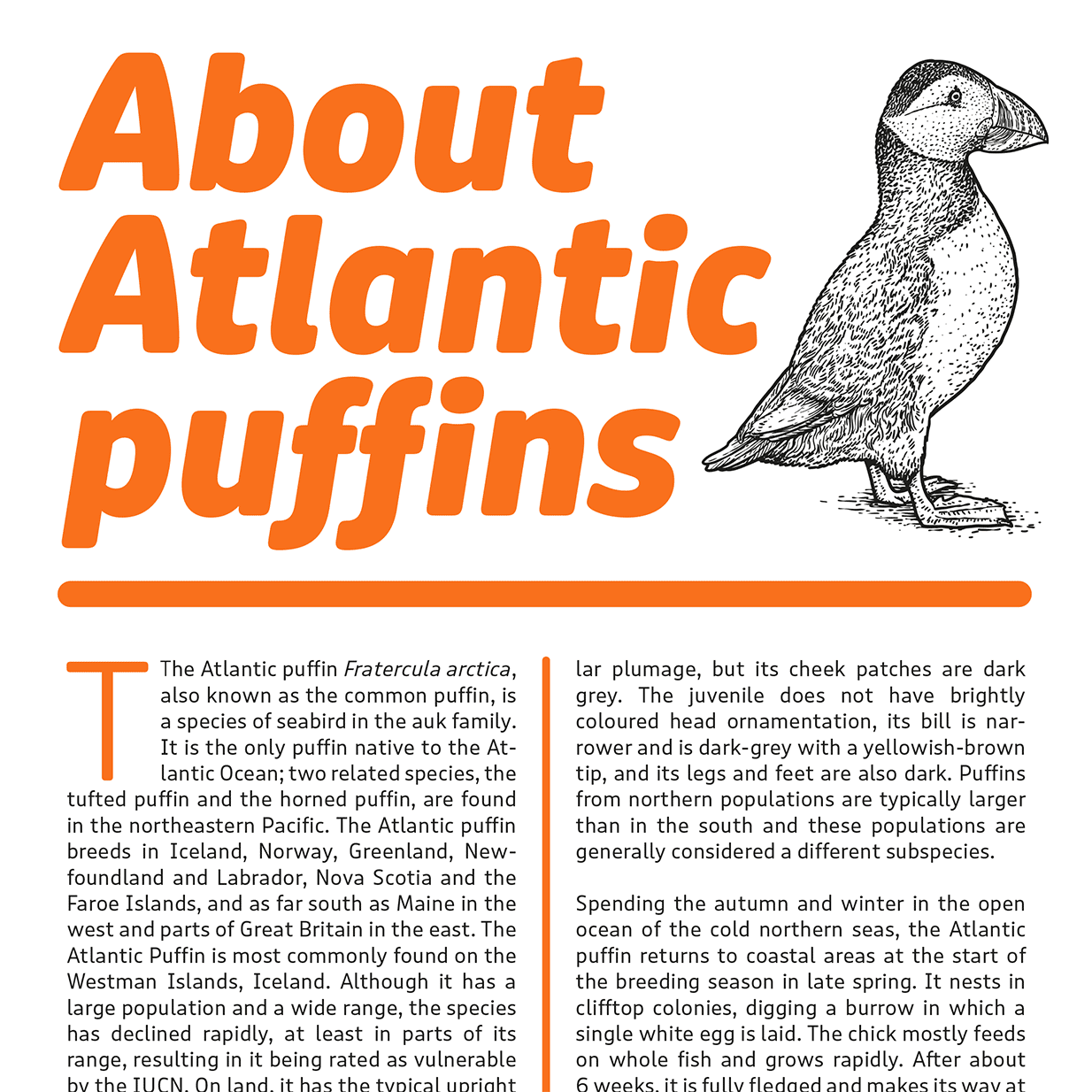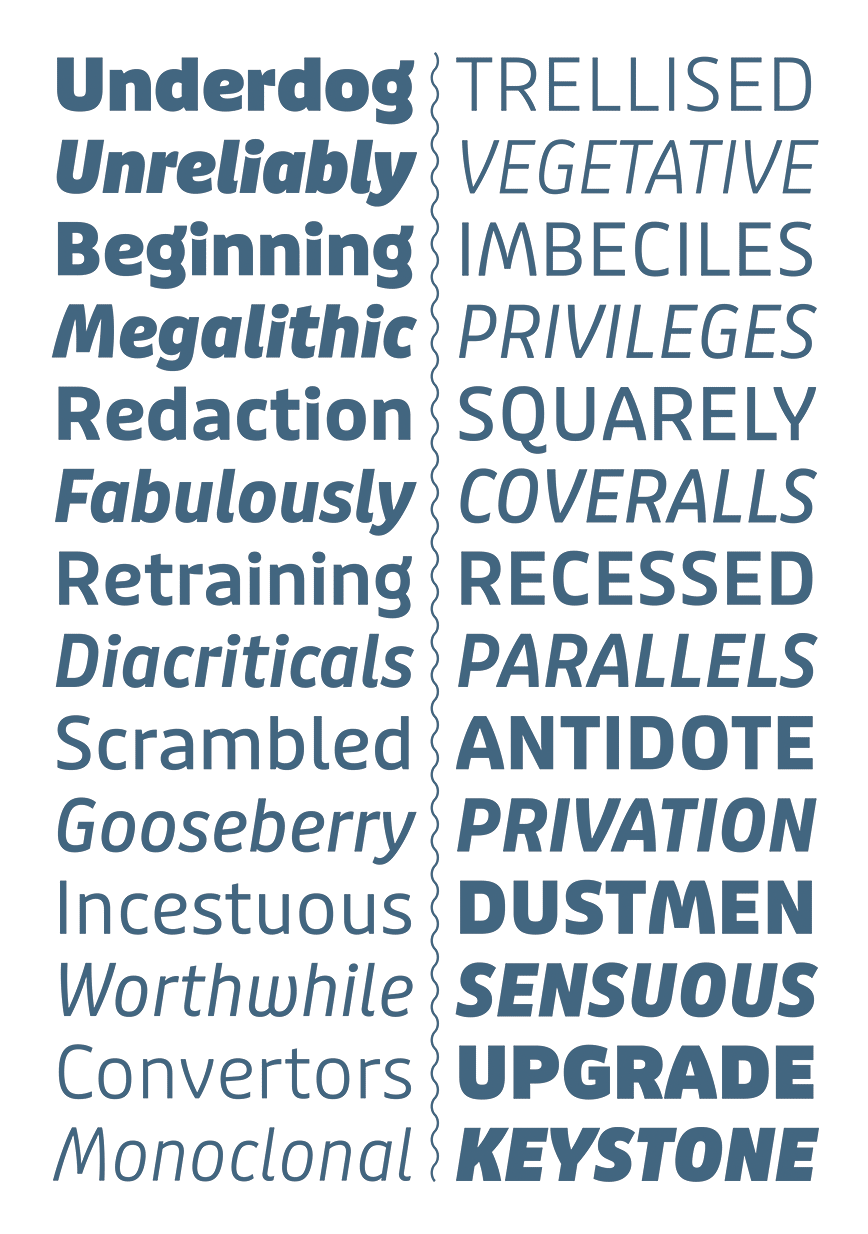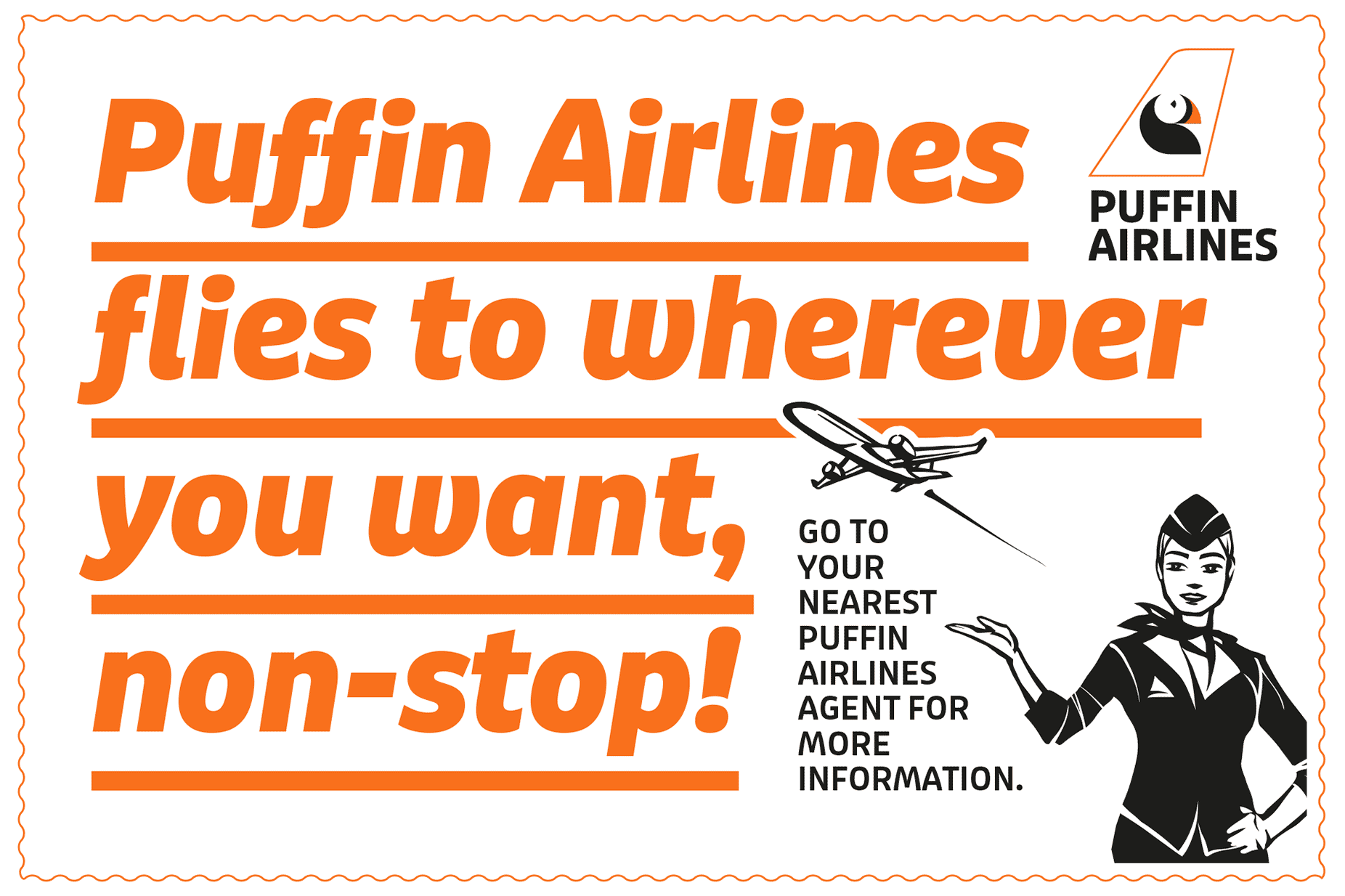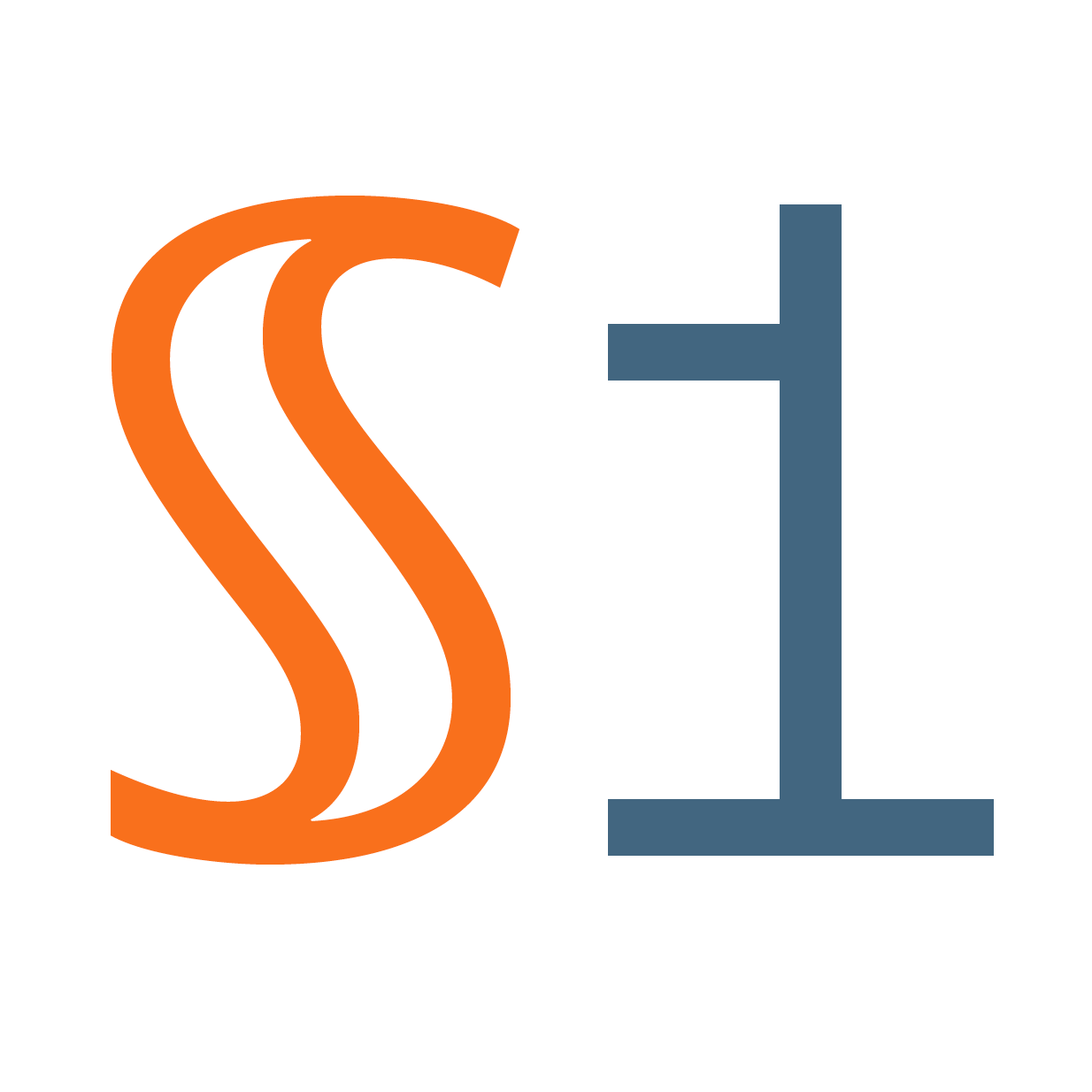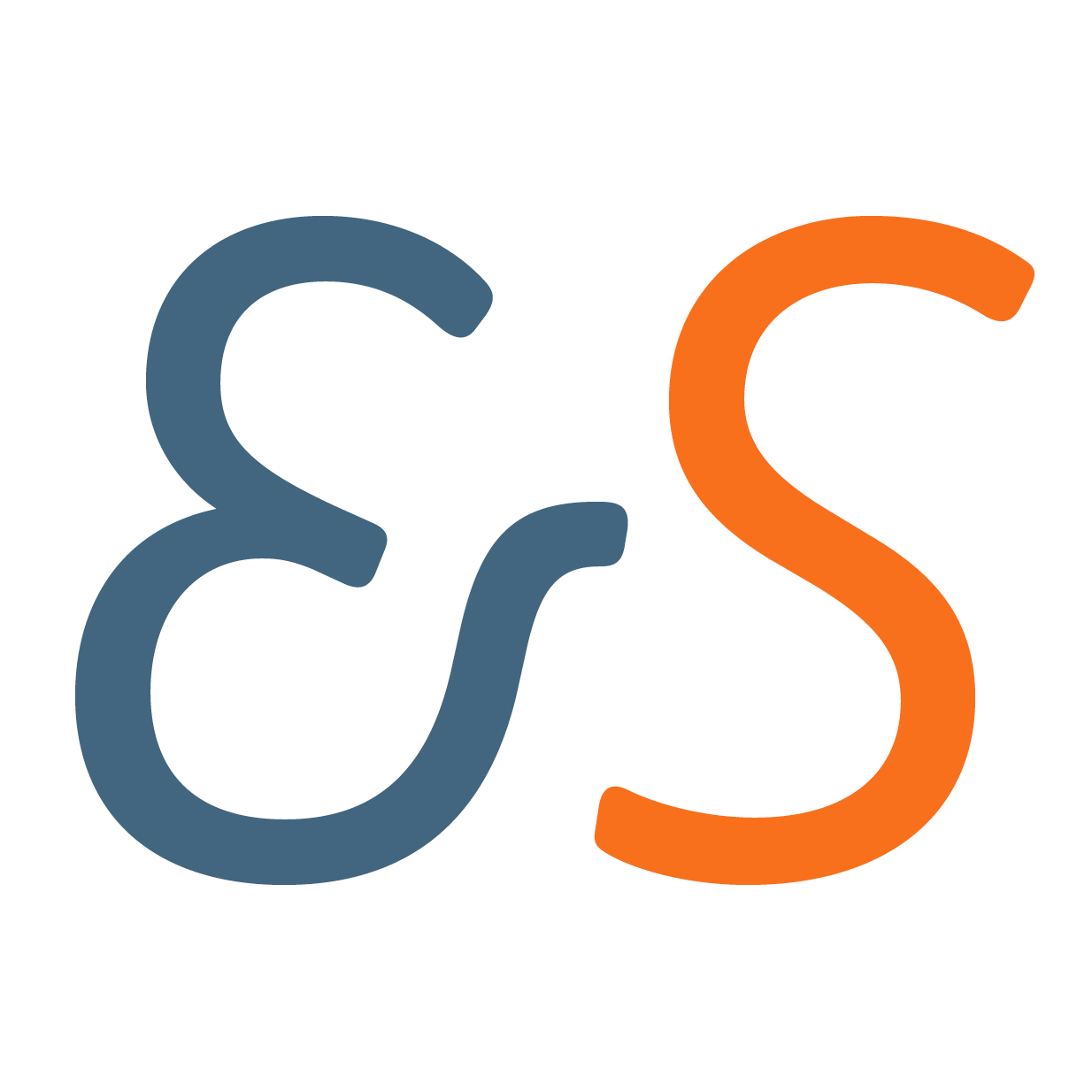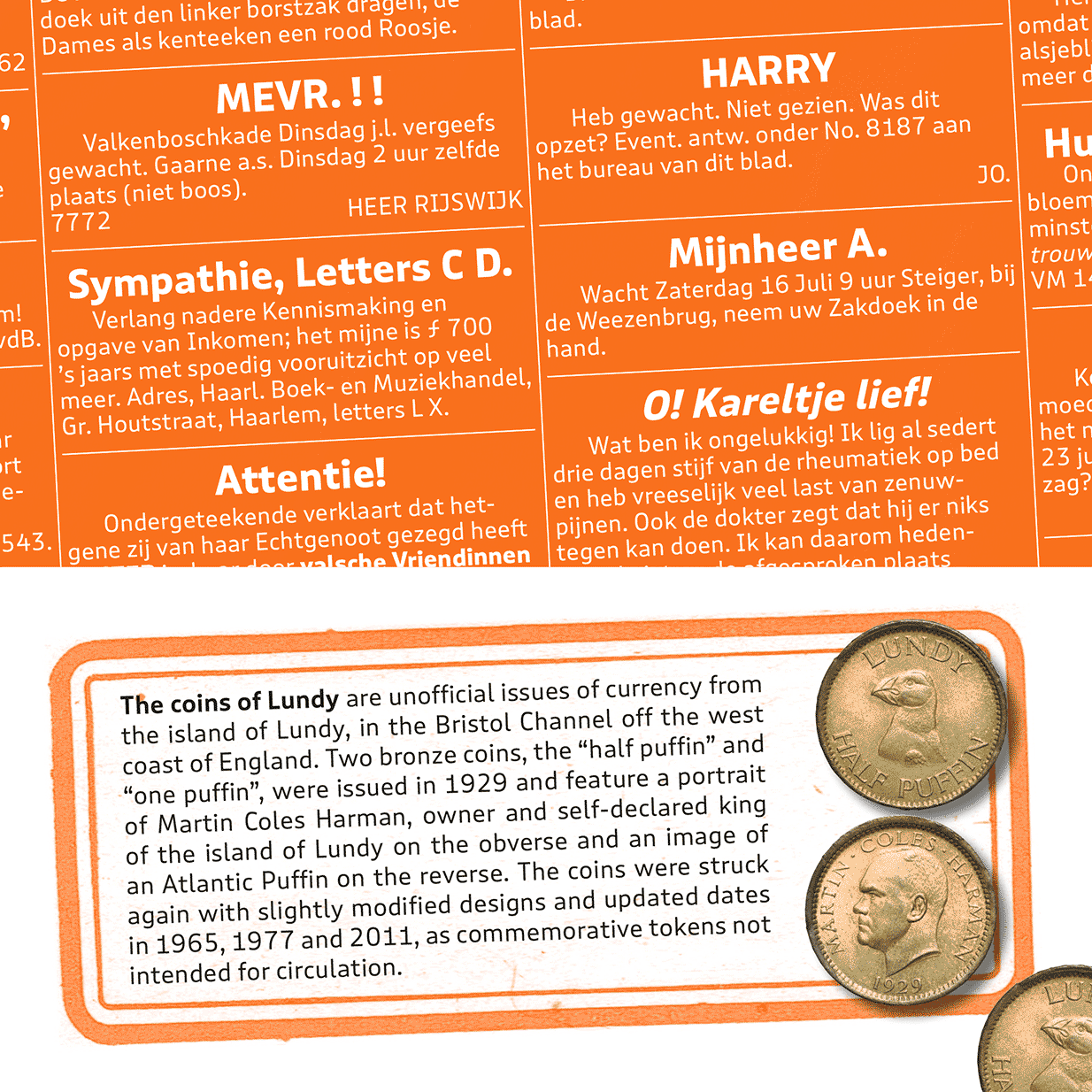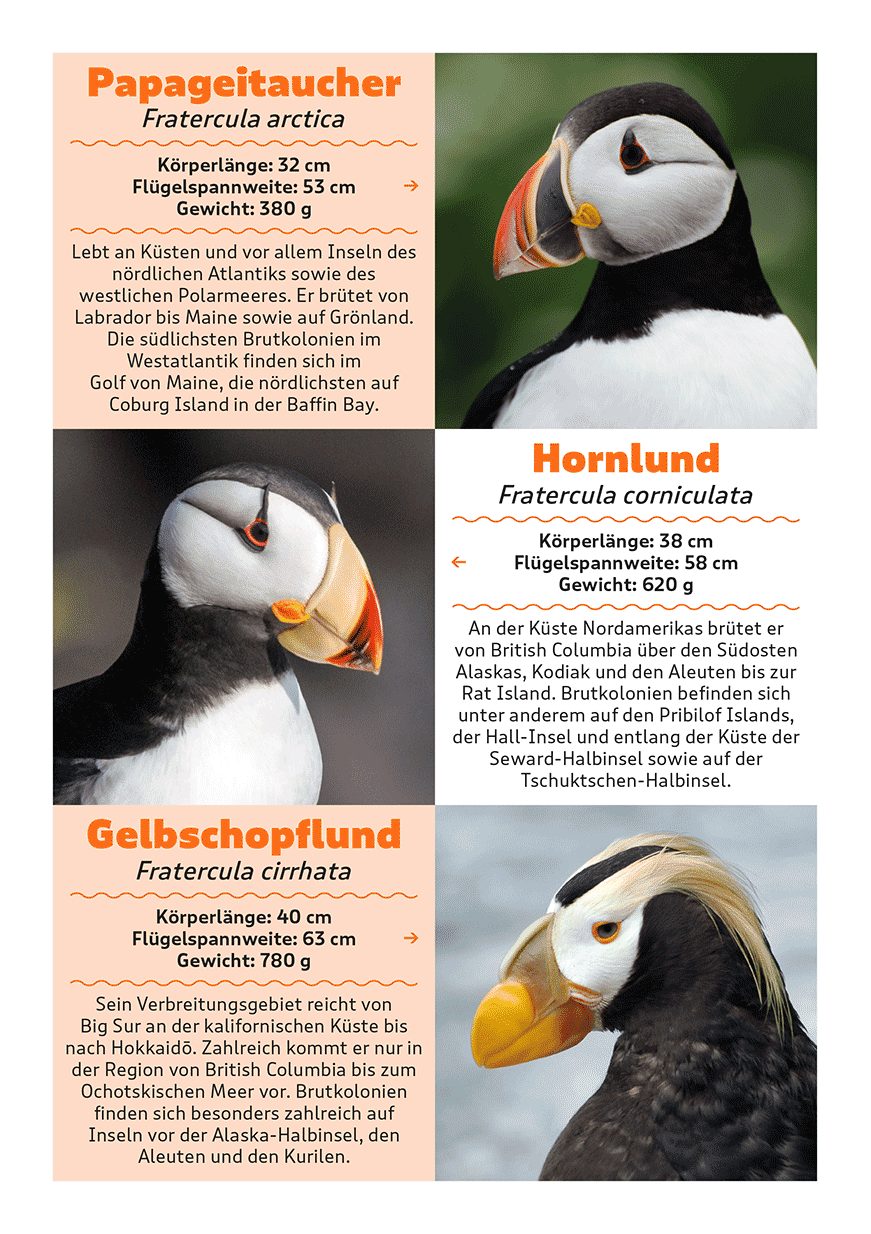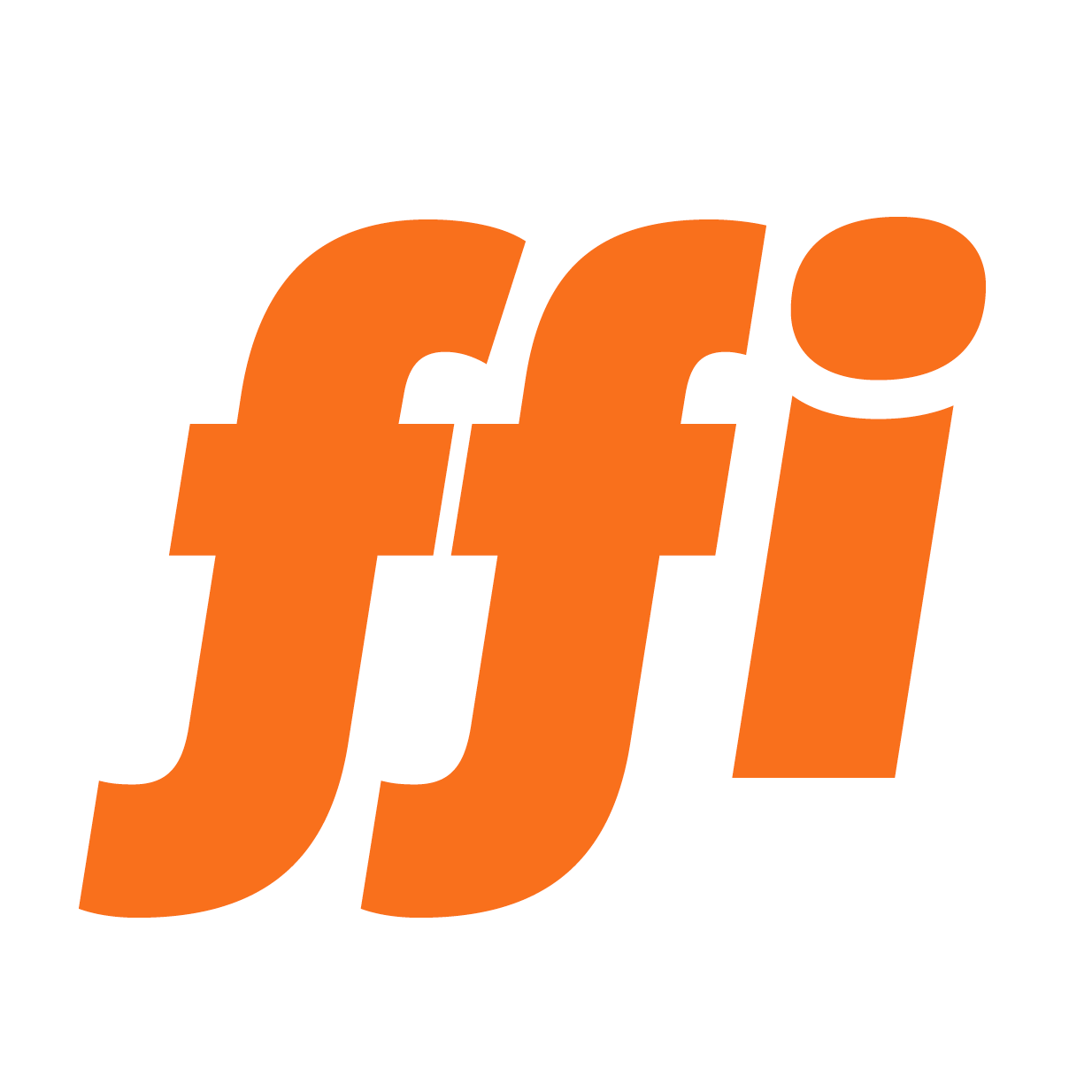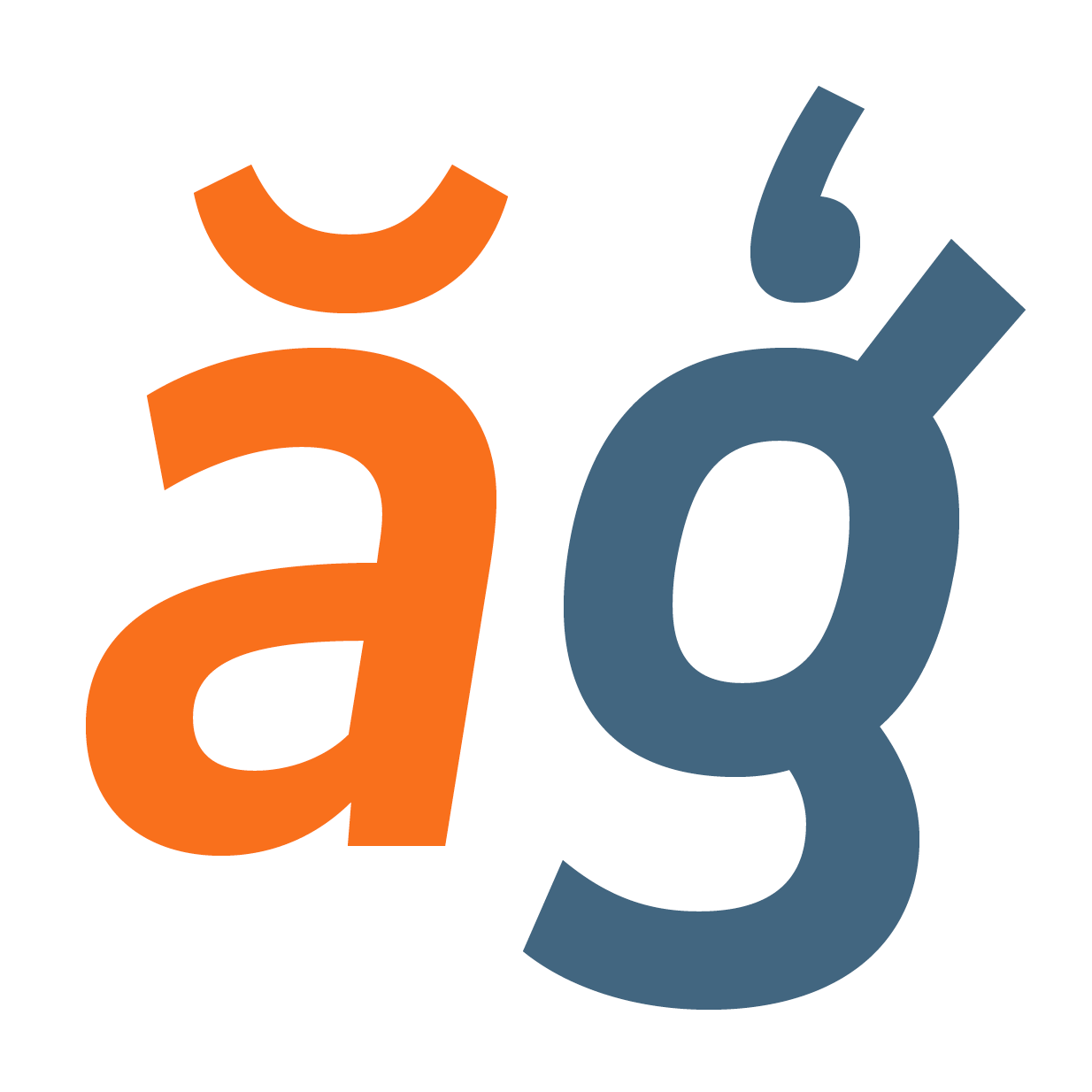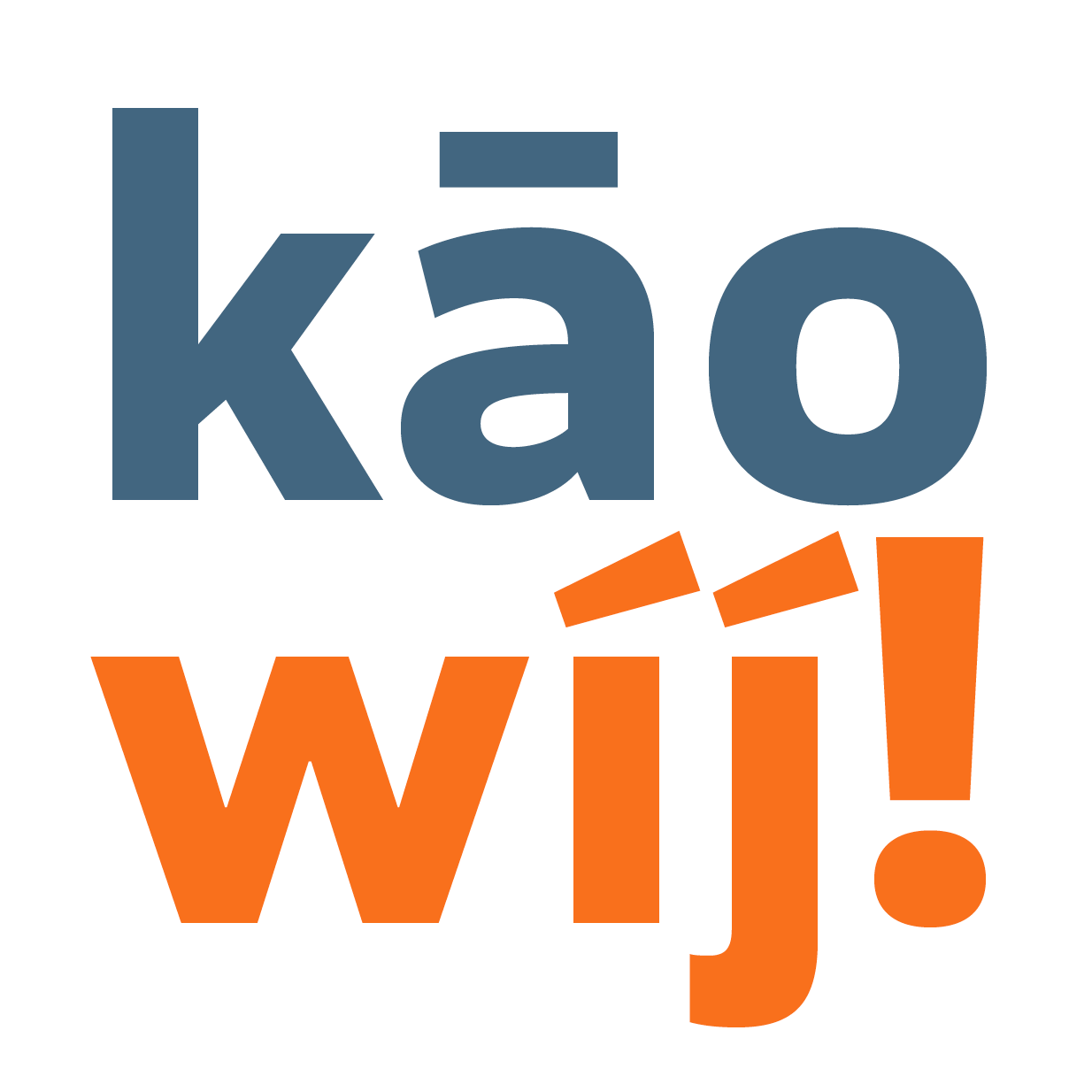
You may recall a charming bold and round display sans called Pinup by Pieter van Rosmalen among the first batch of Bold Monday releases. Informal and of friendly nature, but consisting of one style only. More than 10 years later it grew into two comprehensive type series – one very practical and still fun, one very fun and still quite practical: Puffin and Puffin Arcade.
The extended “normal” family consists of Puffin, Puffin Display and Puffin Display Soft, each available in seven weights plus italics. The plain version of Puffin is the most tamed member. A versatile humanist sans with generous spacing and pronouncedly oblique italics (15°) that is well-suited for on-screen reading and user interface design. Capital I, lowercase l and the numeral 1 have unique forms so they are not easily confused.
Puffin Display and Puffin Display Soft, in comparison, are more flavourful: distinctly curved letterforms, especially in the swinging true italics, or rounded terminals in Puffin Display Soft make you feel right at home and on first-name-terms with it. The Display styles have a taller x-height and slightly tighter spacing that fit all kinds of personable applications in medium to large font sizes. And for an extra dose of playfulness – be it in posters or video games – combine them with Puffin Arcade.
Puffin Display and Puffin Display Soft were designed in collaboration with Sabina Chipară and Jacques Le Bailly; Puffin was designed in collaboration with Jacques Le Bailly.